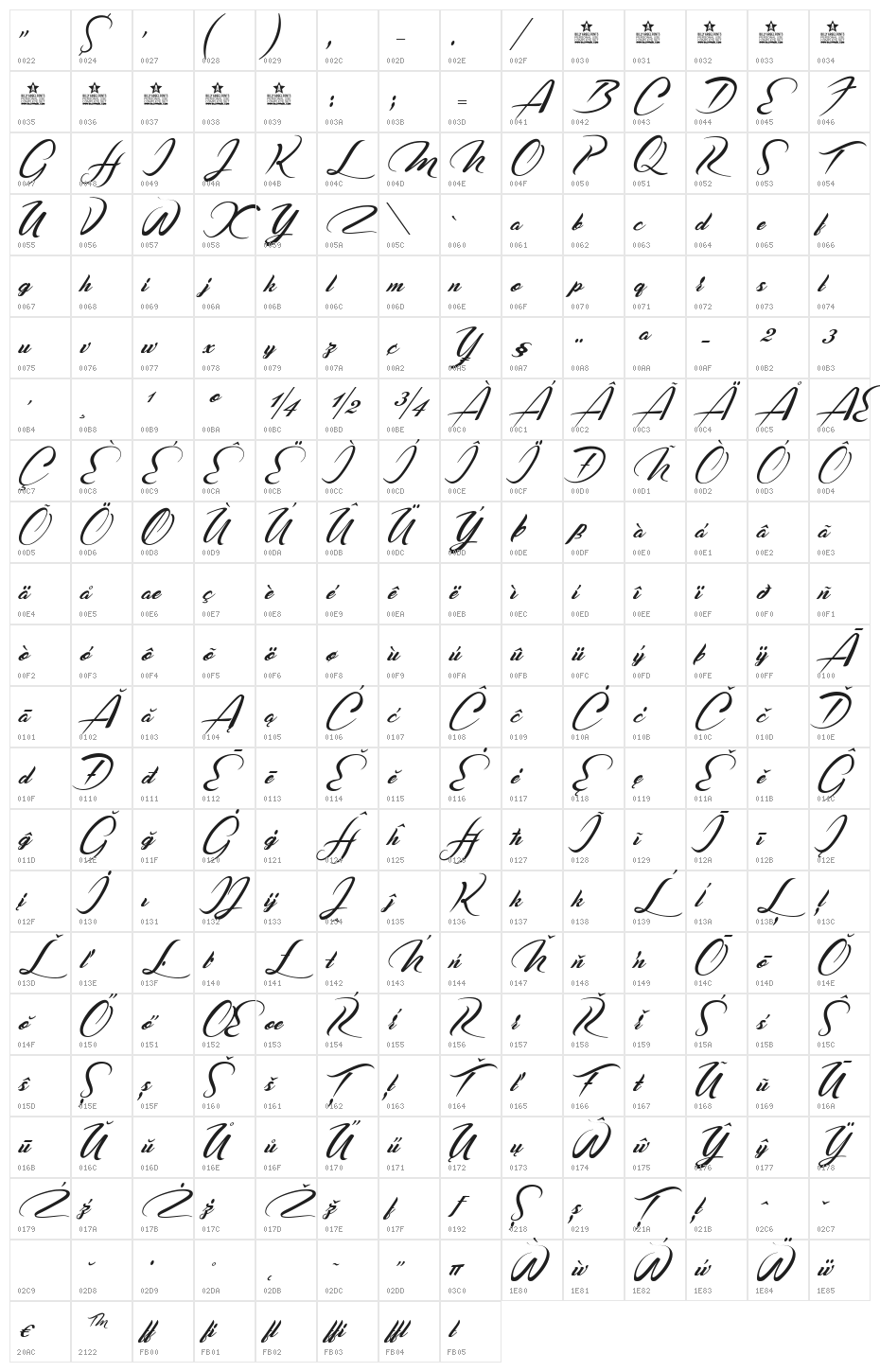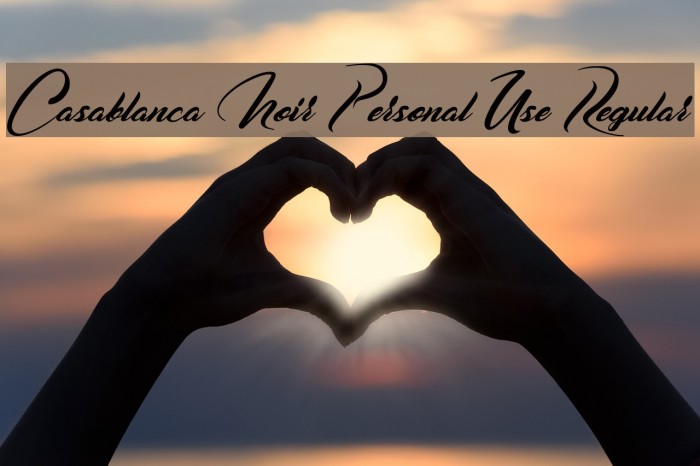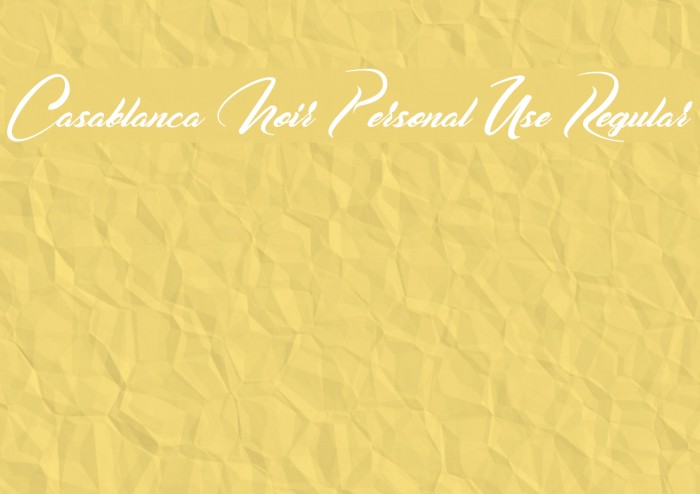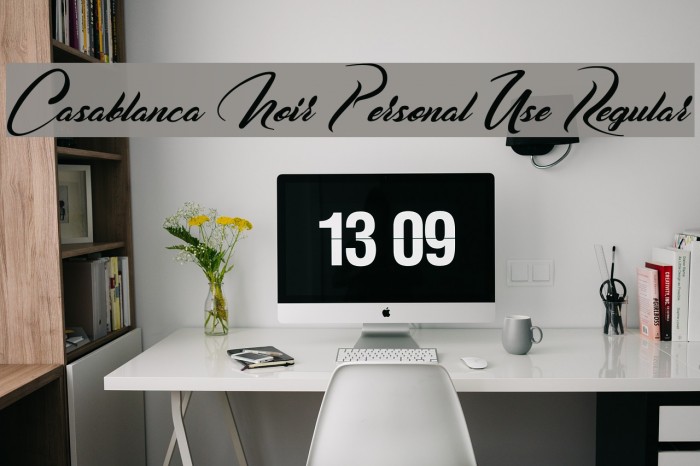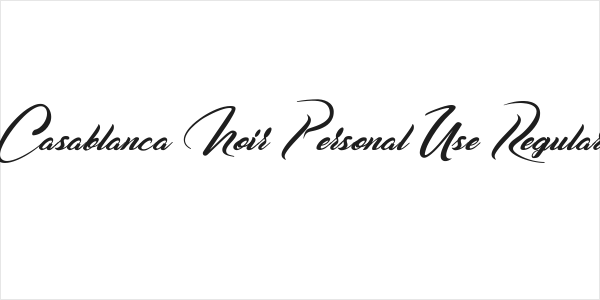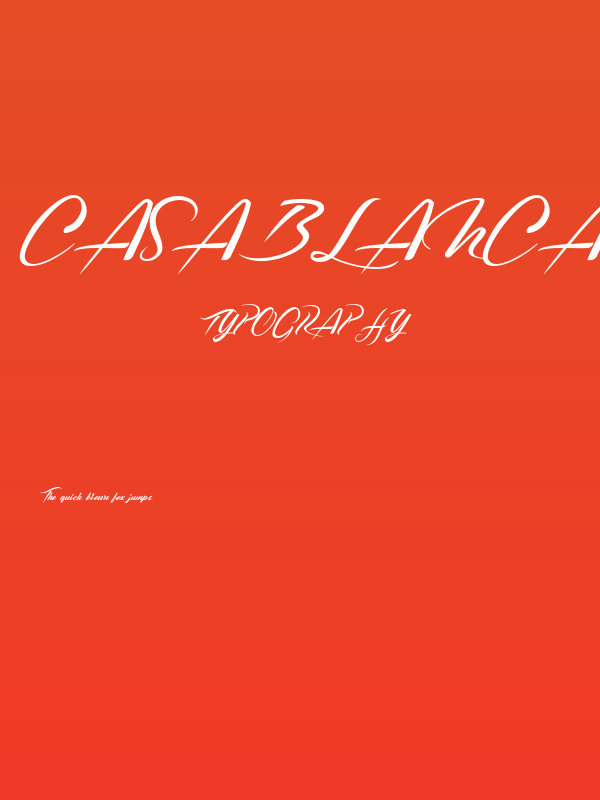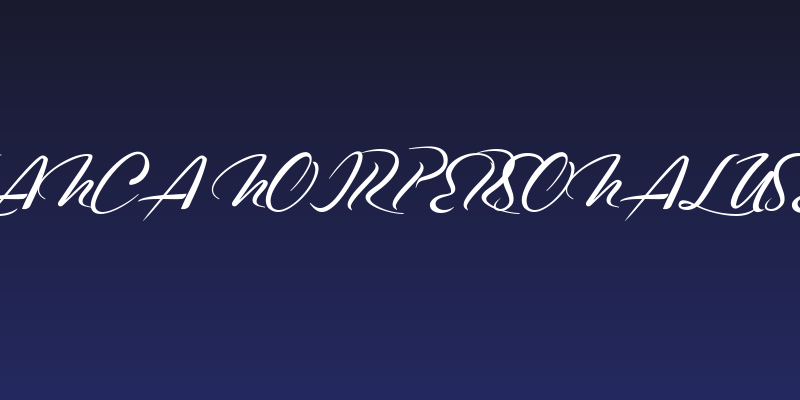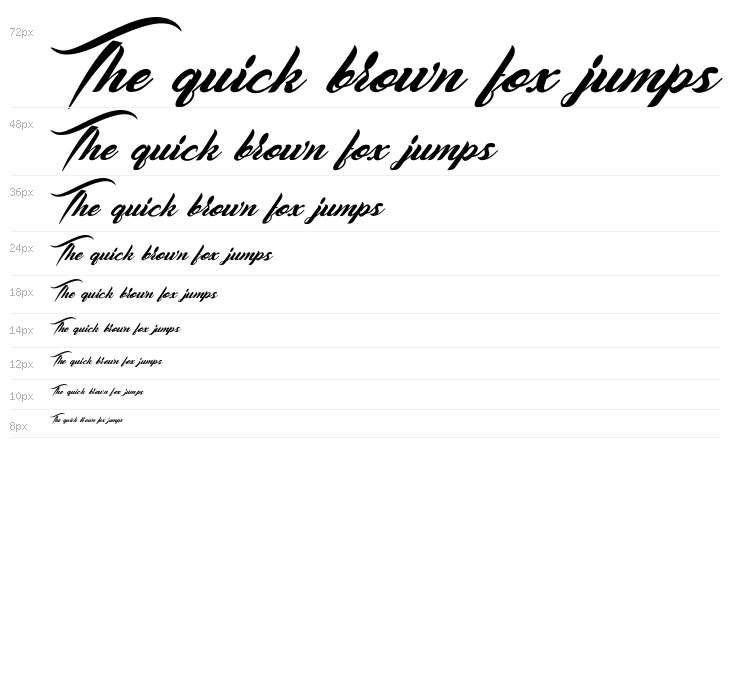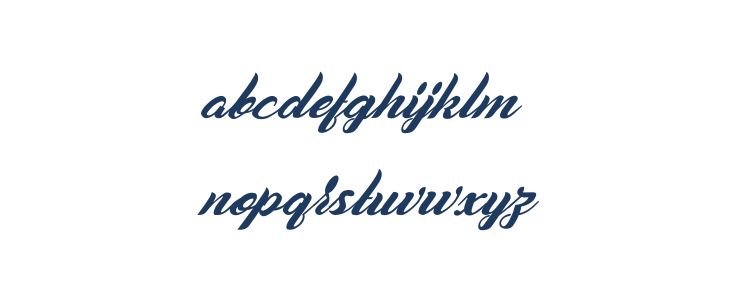
Casablanca Noir Personal Use Regular Font
Casablanca Noir Personal Use Regular Description
This font exhibits a sophisticated and elegant script style, characterized by flowing, cursive letters with a distinct calligraphic influence. The uppercase letters are particularly ornate, featuring sweeping curves and flourishes that add a touch of drama and sophistication. The lowercase letters maintain a consistent style, with smooth connections between characters, enhancing the fluidity of the text. This font is designed to capture attention with its decorative flair, making it ideal for projects that require a touch of elegance and class. The numerals and special characters are crafted with the same attention to detail, ensuring a cohesive look across all text elements.
| Overall Style | Elegant, Decorative |
| Proposed Projects | Ideal for wedding invitations, luxury branding, elegant signage, and high-end product packaging. |